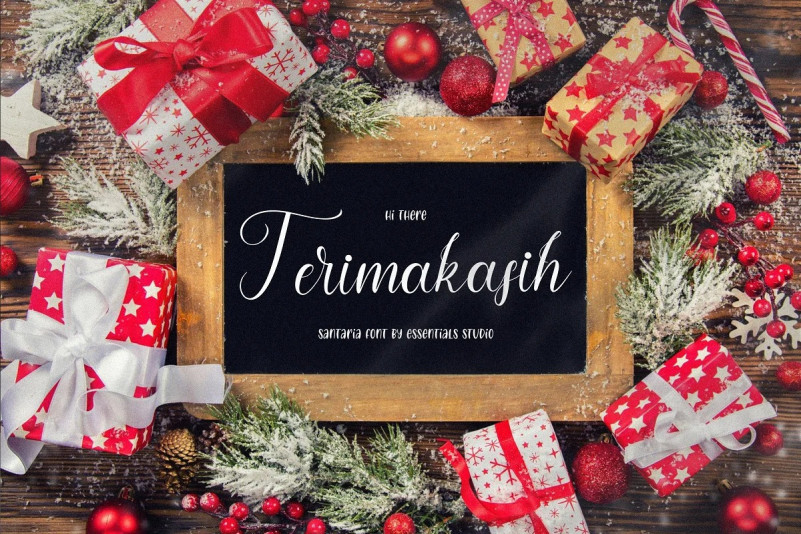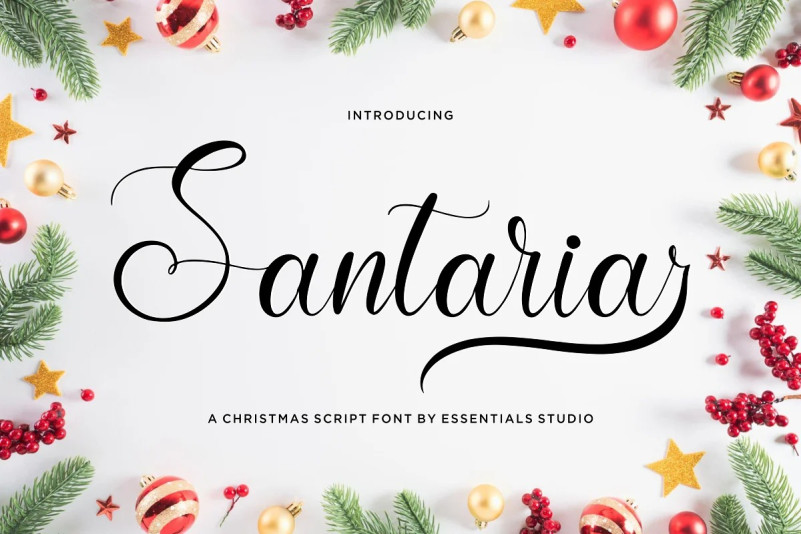
Santaria Font
Santaria Calligraphy Font is a Modern Christmas Script Font Santaria is perfect for product packaging, branding project, megazine, social media, wedding, or just used to express words above the background.